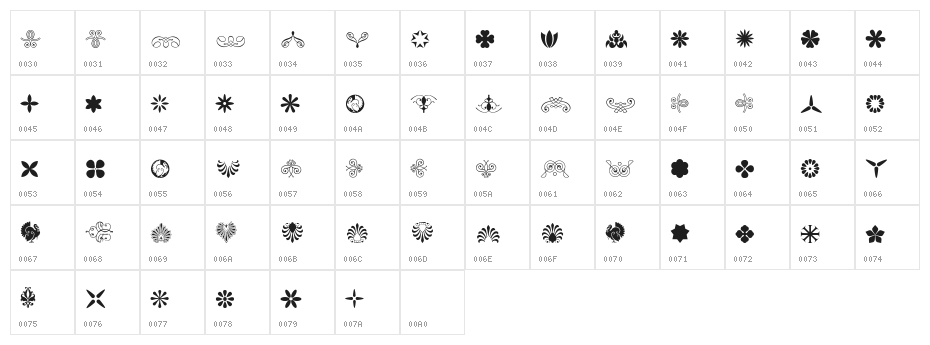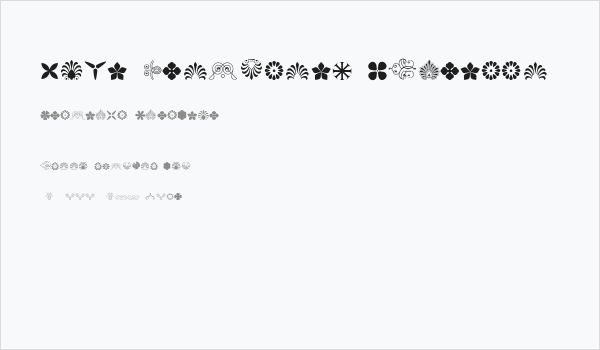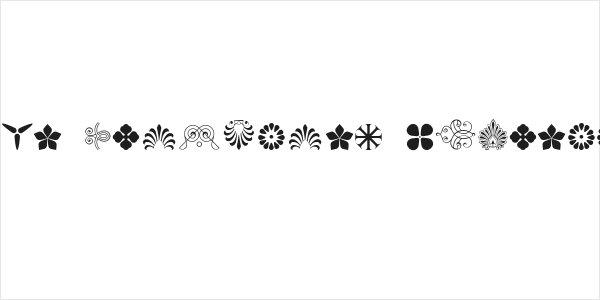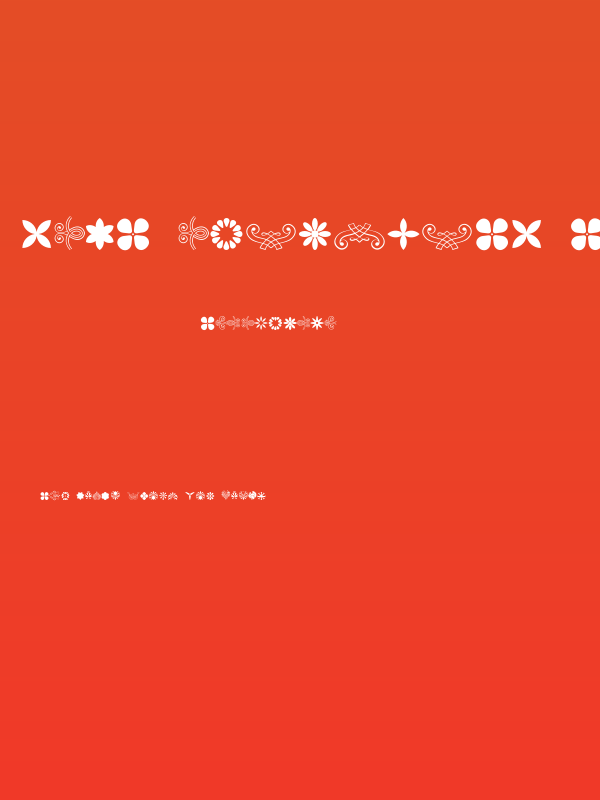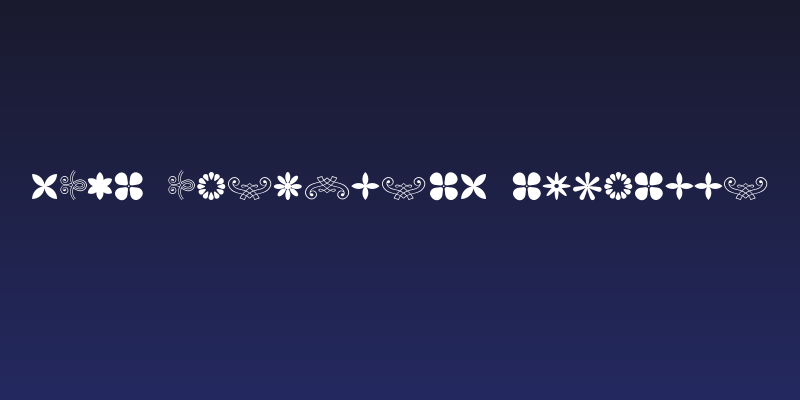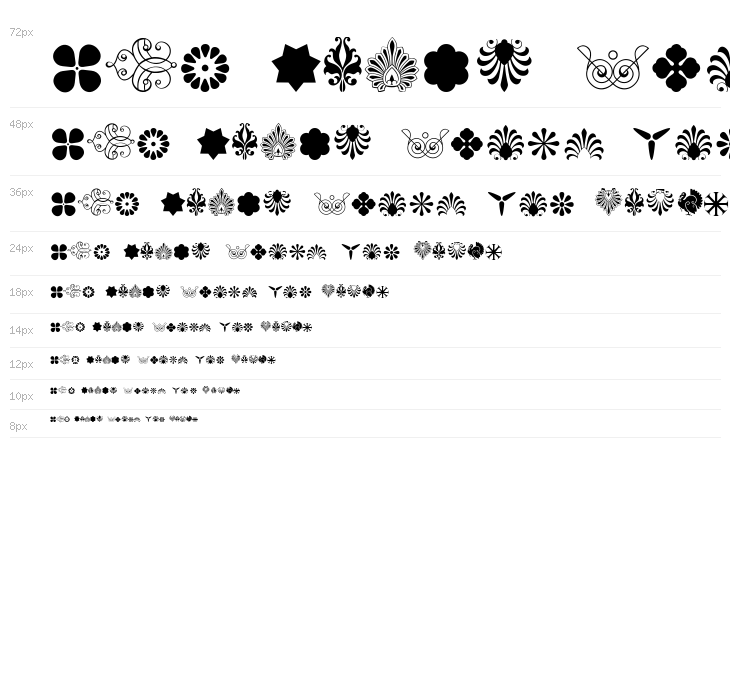
Soft Ornaments Thirteen Font
Soft Ornaments Thirteen Description
A collection of decorative ornamental glyphs featuring floral, geometric, and flourish motifs, rendered in both solid and outlined styles. The designs vary from simple shapes to intricate swirls and flourishes, suitable for embellishing text or graphic layouts.
| Overall Style | Decorative, Ornamental, Vintage |
| Use Case | Borders, Dividers, Decorative elements |
| Proposed Projects | Invitations, certificates, borders, dividers, scrapbooking, decorative accents in graphic design. |